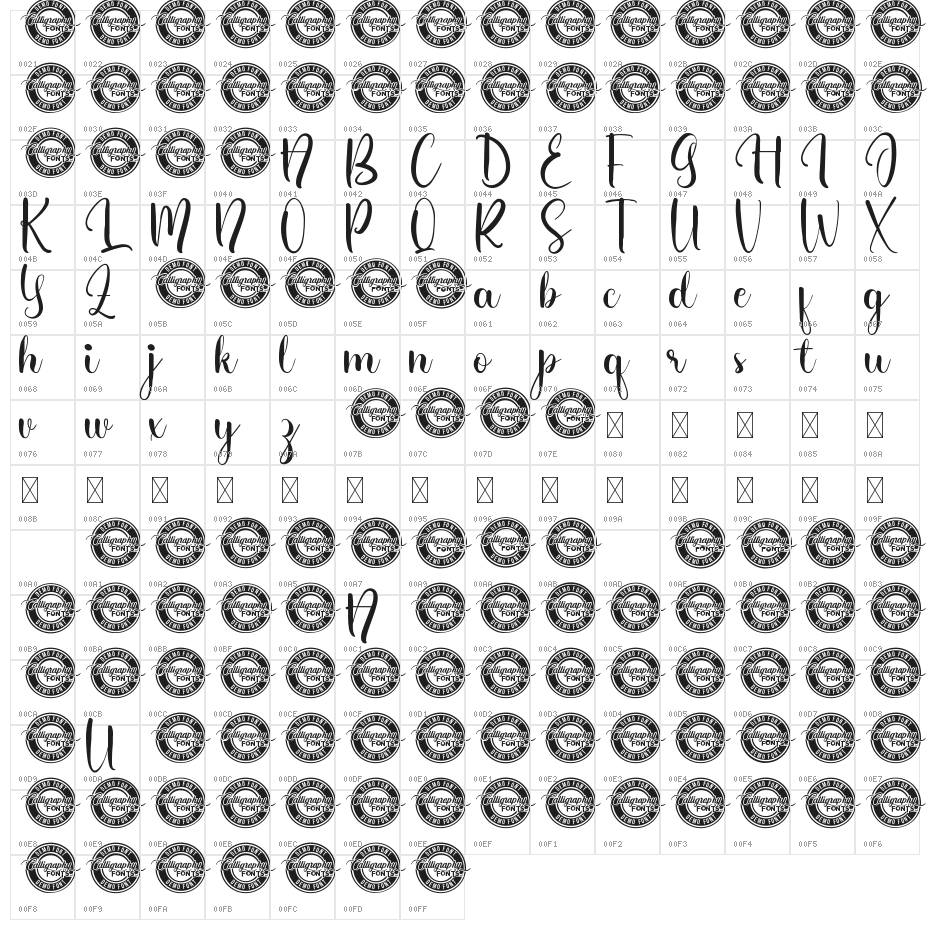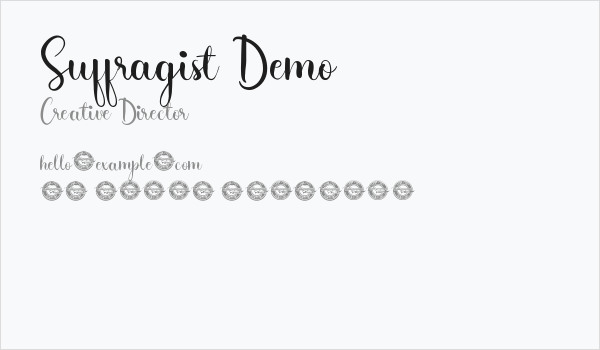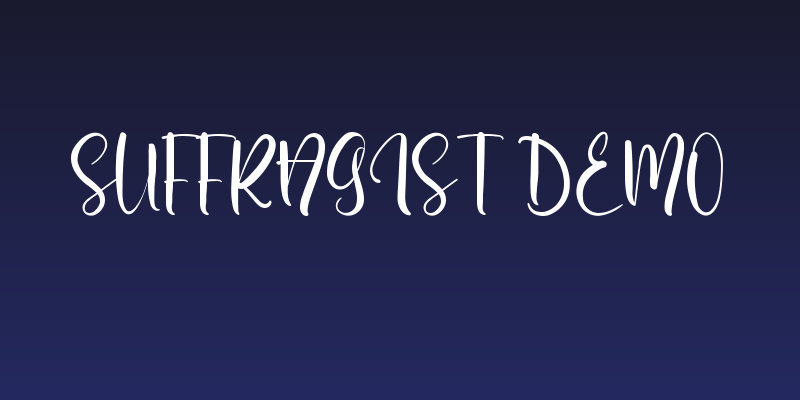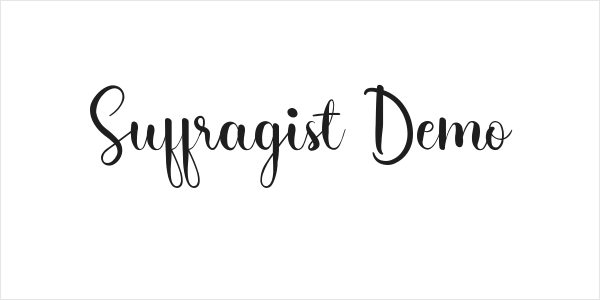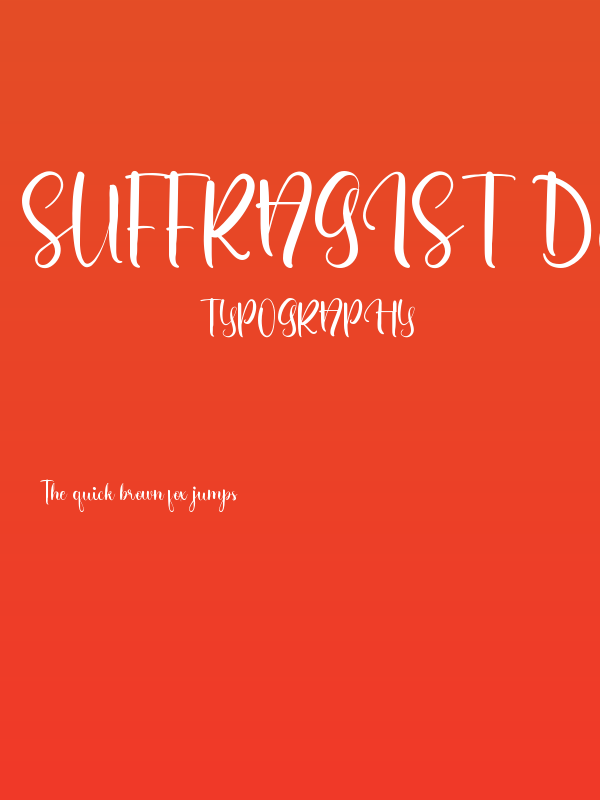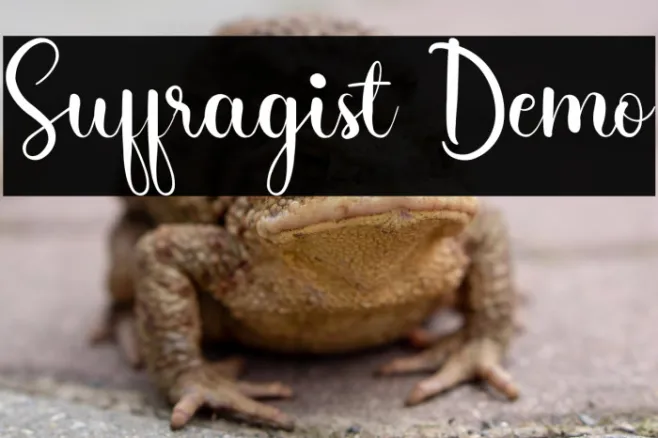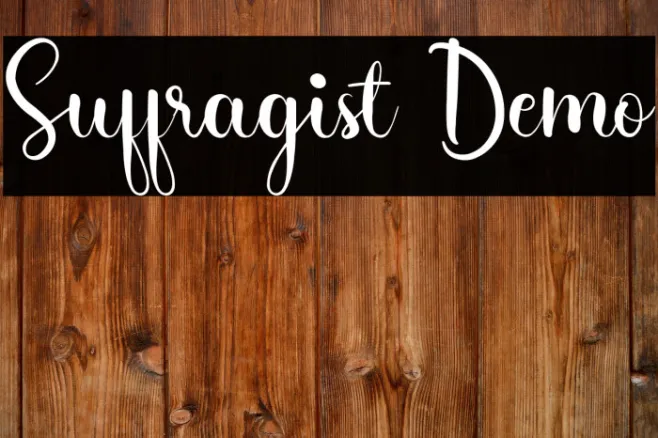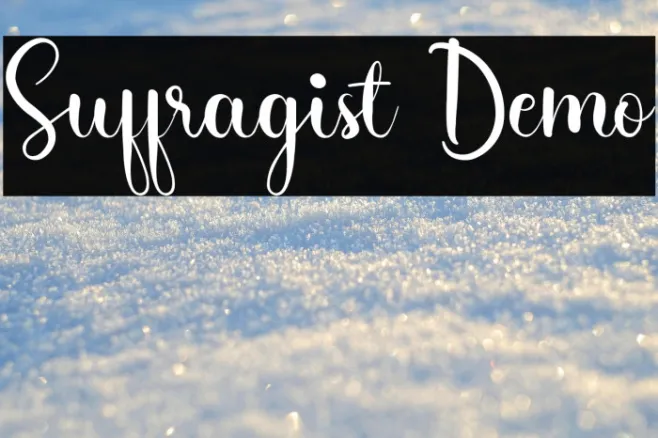
Suffragist Demo Font
Suffragist Demo Description
This font features a flowing, script style with elegant curves and a handwritten feel. The uppercase letters are bold and expressive, with a slight slant that adds a dynamic touch. The lowercase letters maintain a consistent style, with smooth connections and a graceful appearance. The font's overall design is both sophisticated and approachable, making it suitable for a variety of creative projects. The characters are well-spaced, ensuring readability while maintaining an artistic flair. This font is ideal for projects that require a personal touch, such as invitations, greeting cards, and branding materials.
| Proposed Projects | Ideal for invitations, greeting cards, branding, and creative projects requiring a personal touch. |